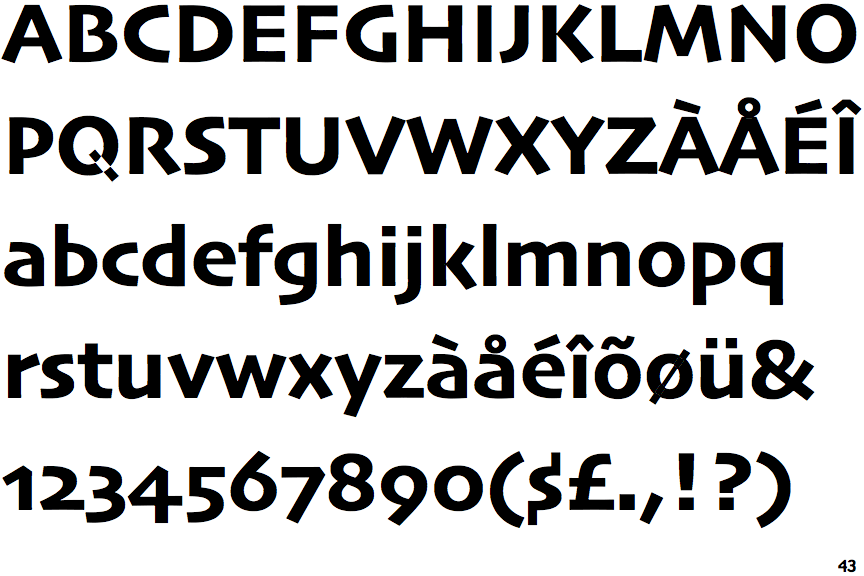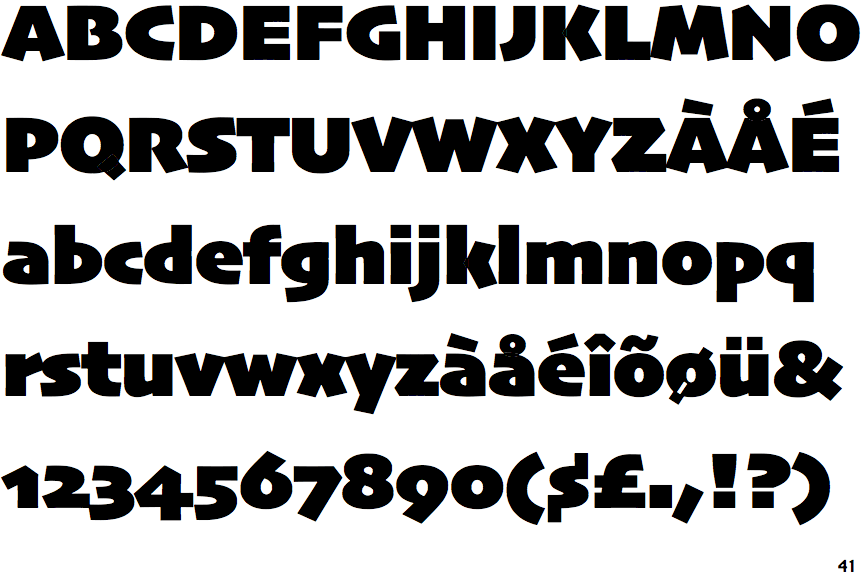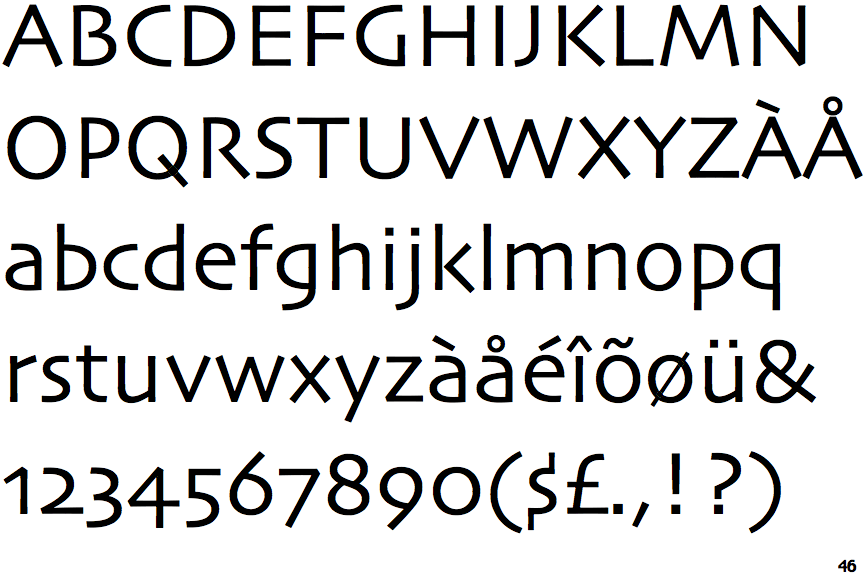
You Can Use The Skia Regular To Create Interesting Designs, Covers, Shop And Store Name And Logos.
Skia Is A Stylish Sans Serif Face Originally Built As A Showcase For Apple’s Quickdraw Gx Technology, And As Such Has Variable Weight And Width Axes.